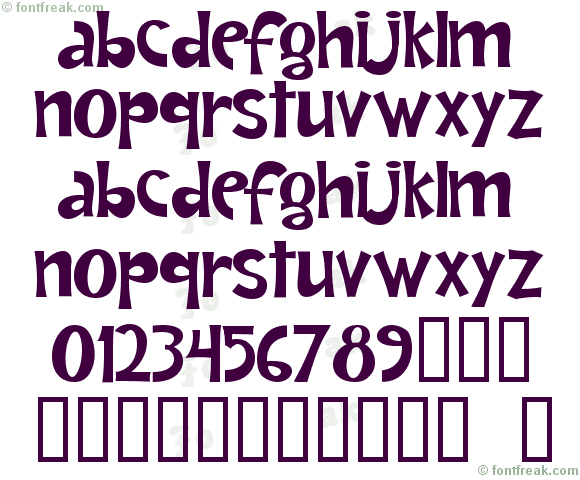
Andrea Karime Normal
About Andrea Karime Normal
Andrea Karime Normal by Grafito Design is a unique display font that blends whimsical charm with a modern aesthetic. This font features a distinctive handwritten style, characterized by its irregular stroke weight and playful curves. The letters exhibit a delightful fluidity, which adds a personal touch to any design project. The spacing is thoughtfully designed to ensure legibility while maintaining a casual, free-spirited feel, making it ideal for various creative applications.
This font stands out in specific use cases, such as wedding invitations, where its charming appearance can evoke emotion and set the tone for a romantic occasion. Additionally, it can be effectively used in children's book covers, providing a friendly and inviting look that appeals to young readers. Restaurant menus can also benefit from the Andrea Karime Normal font, as its unique character can make the menu items pop, enhancing the dining experience. Graphic designers and content creators will find this font particularly useful for social media graphics, where eye-catching typography is essential for engagement.
In a crowded marketplace of fonts, Andrea Karime Normal stands out for its playful yet sophisticated character. Its ability to convey a sense of personality and warmth makes it an excellent choice for anyone looking to add a unique flair to their designs. Discover the charm of this font with an Andrea Karime Normal font free download, and elevate your creative projects today.